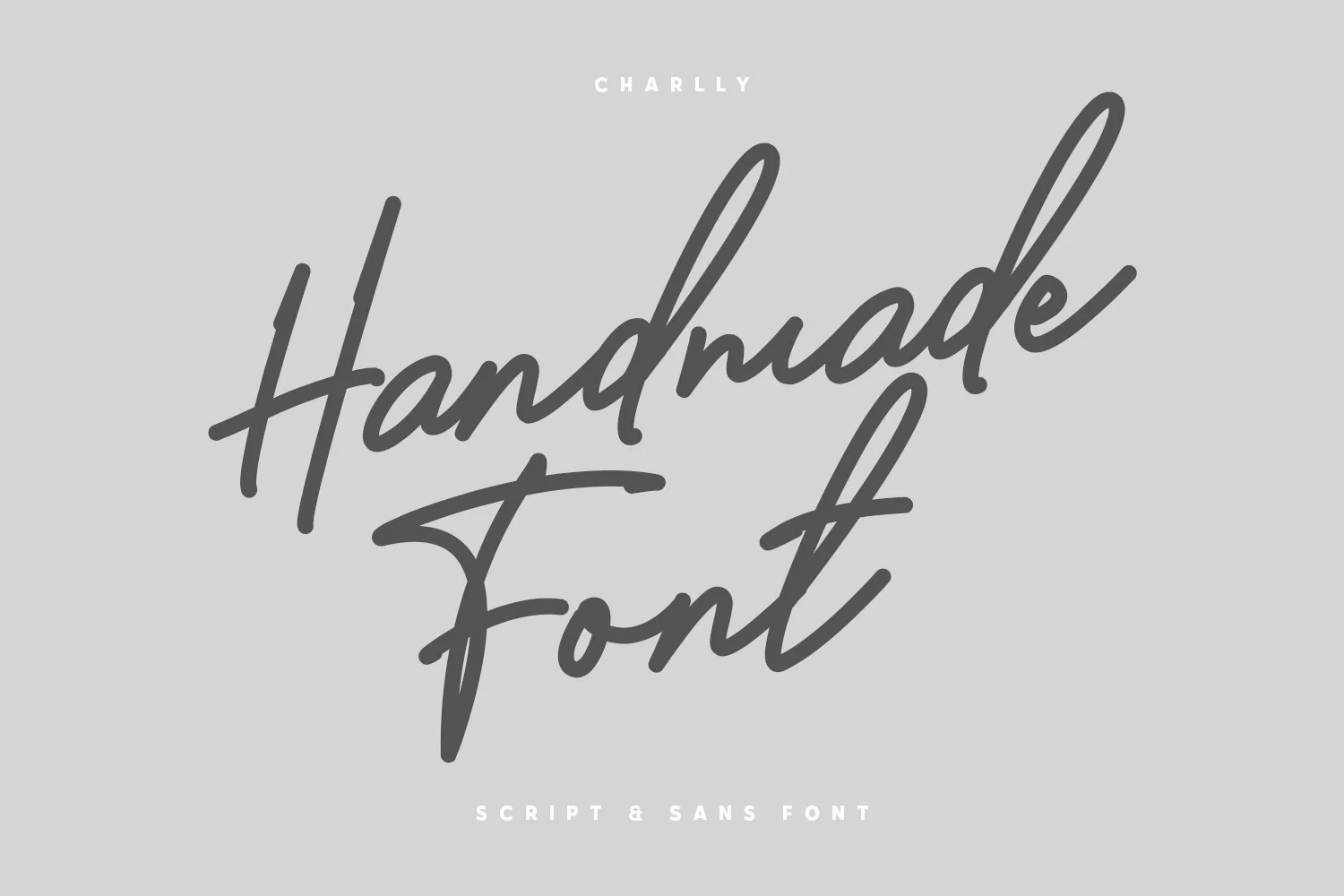
Introducing Charlly Font Duo. Sans-Serif and Script FontCharlly is a handmade handlettering, which is combining modern and classic typography with some awesome Ligature. Give your designs an authentic handcrafted feel. "Charlly Script" is perfectly suited to signature, stationery, logo, typography quotes, magazine or book cover, website header, clothing, branding, packaging design and more.Font Include:
- Ligatures Include